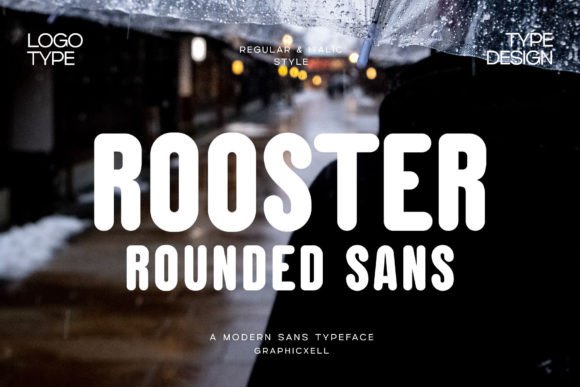
Introducing Rooster Font: A Journey Through Modern Elegance and Timeless Appeal
Rooster Font, the epitome of contemporary sophistication, offers a refreshing take on the classic sans-serif style. Its distinctively soft curves and clean lines are meticulously crafted to evoke a sense of warmth and approachability, while maintaining an air of professionalism. This captivating typeface is a versatile chameleon, adapting effortlessly to a myriad of design projects, effortlessly elevating your creations with its undeniable charm.
Rooster Font exudes a harmonious blend of modernity and lightheartedness, adding a touch of whimsy to your designs while retaining a timeless aesthetic. Its rounded letterforms radiate a welcoming aura, inviting viewers to engage with your content. Whether you're crafting logos, website designs, brochures, or any other marketing material, Rooster Font is your trusted companion, transforming your ideas into visually striking masterpieces.
Born from the creative visionaries at Graphicxell, Rooster Font is a meticulously designed typeface that caters to the discerning taste of designers seeking a font that resonates with their brand's unique personality. Its versatility knows no bounds, seamlessly adapting to an array of industries and purposes, from fashion and lifestyle to technology and finance. With Rooster Font as your ally, you'll unlock a world of creative possibilities, effortlessly captivating your audience with designs that speak volumes.